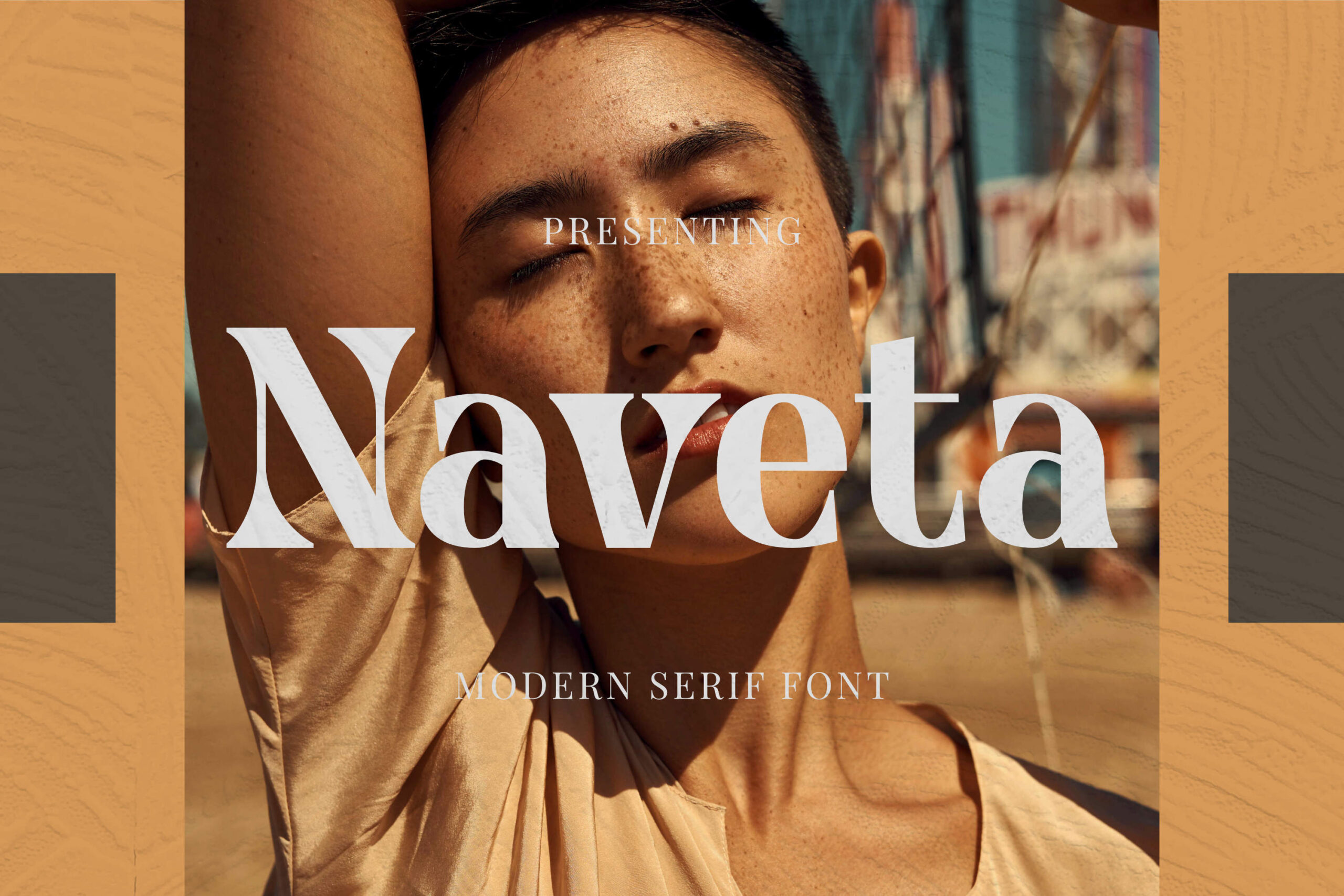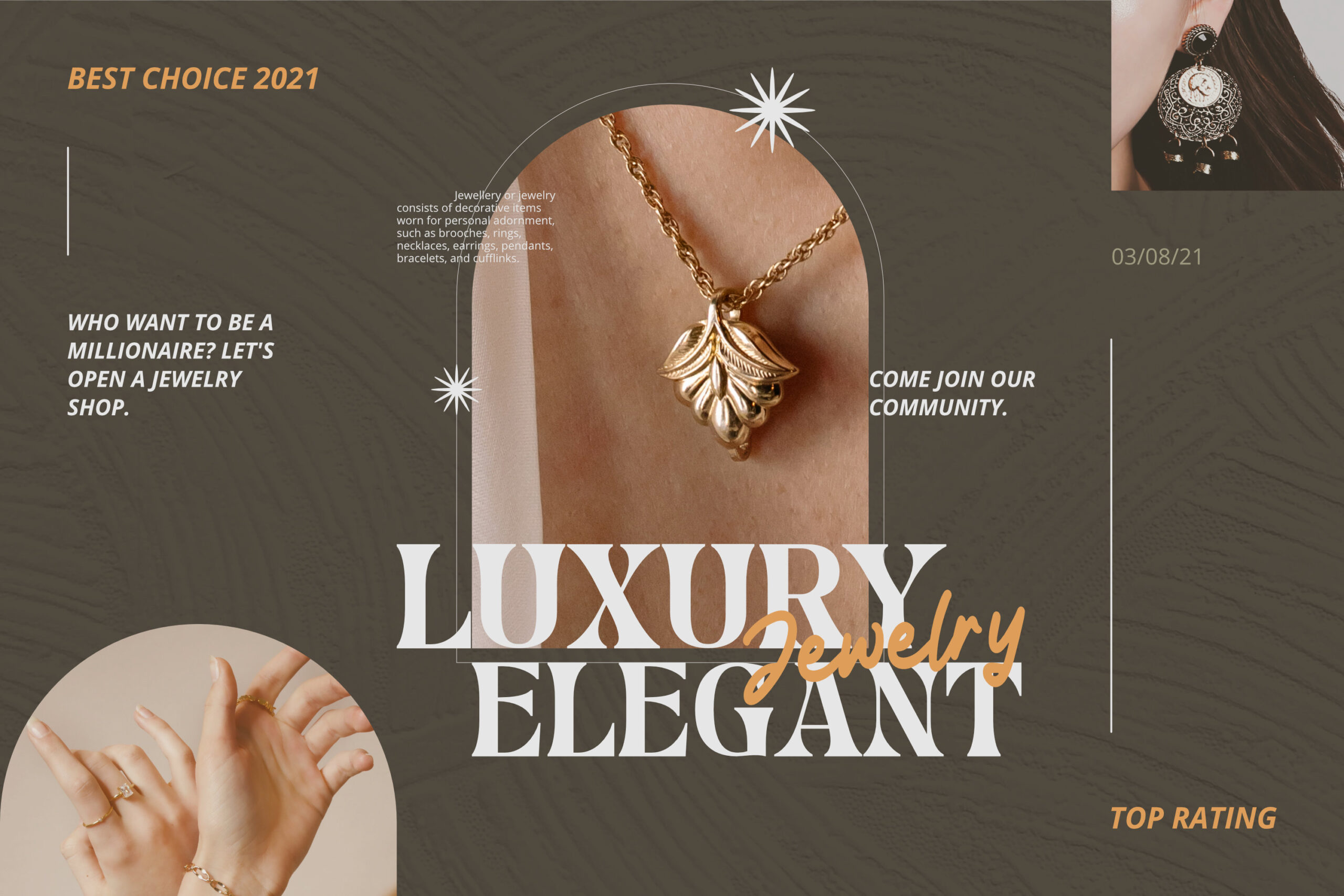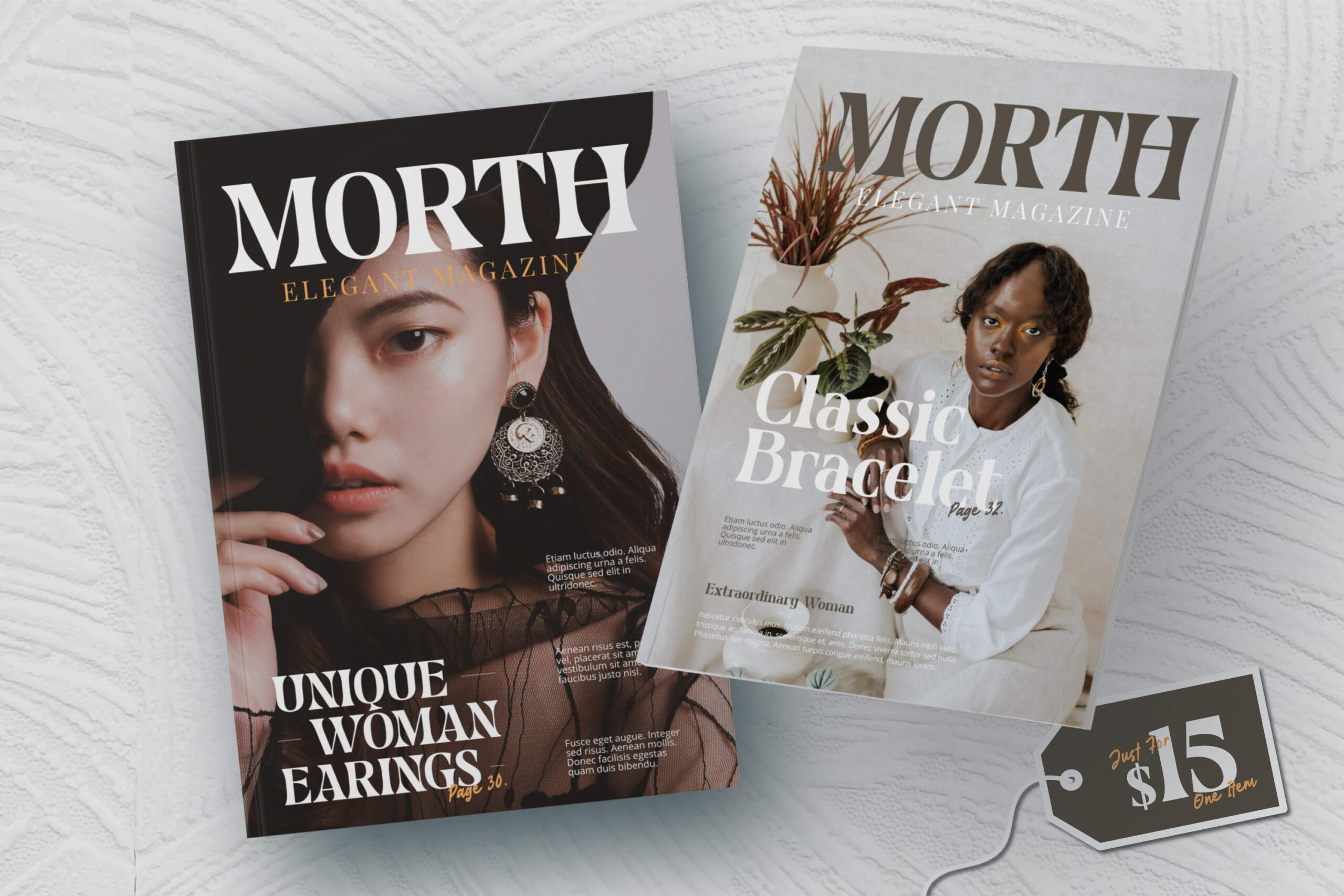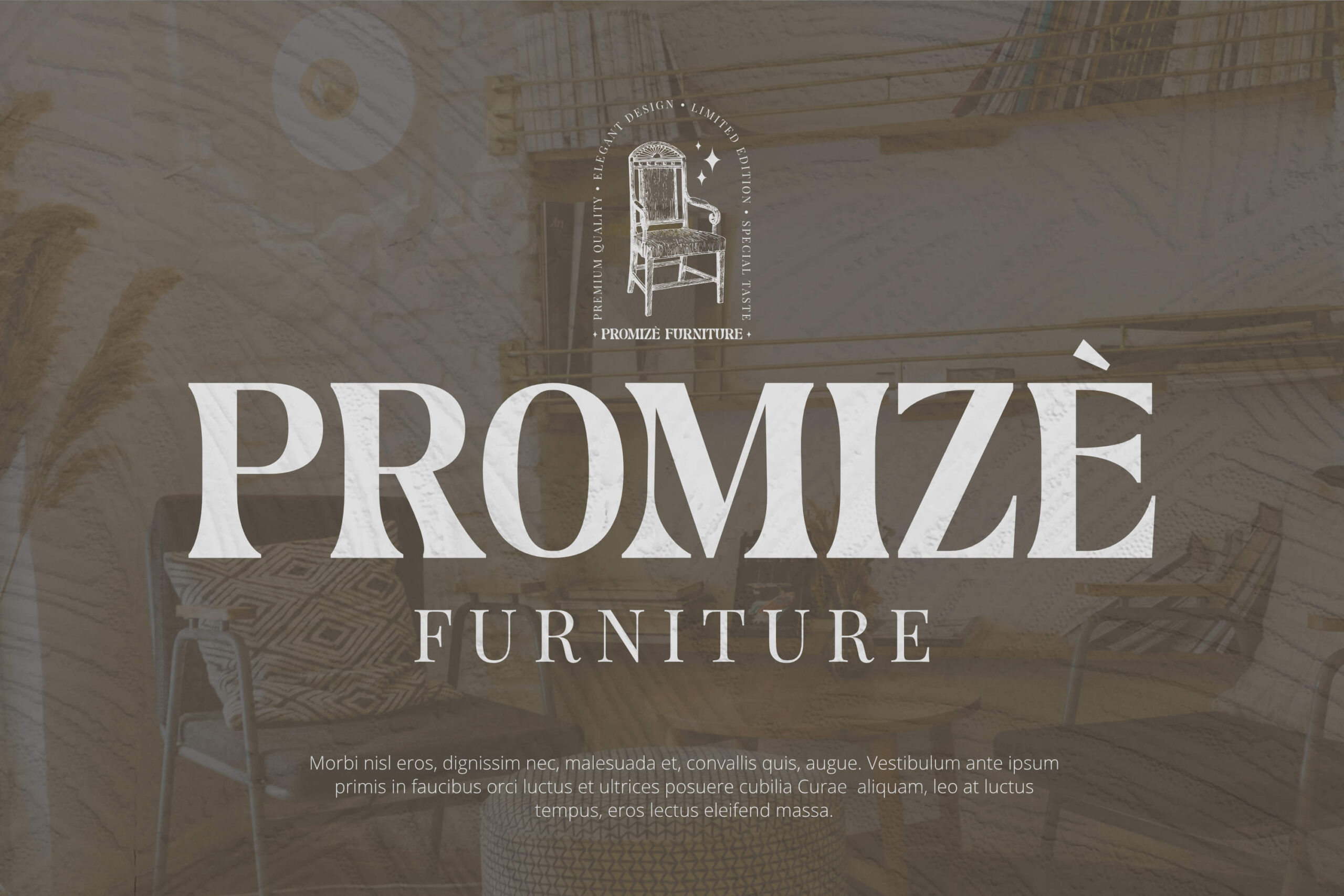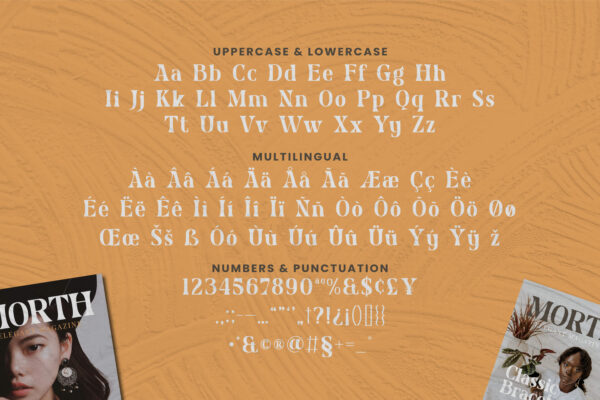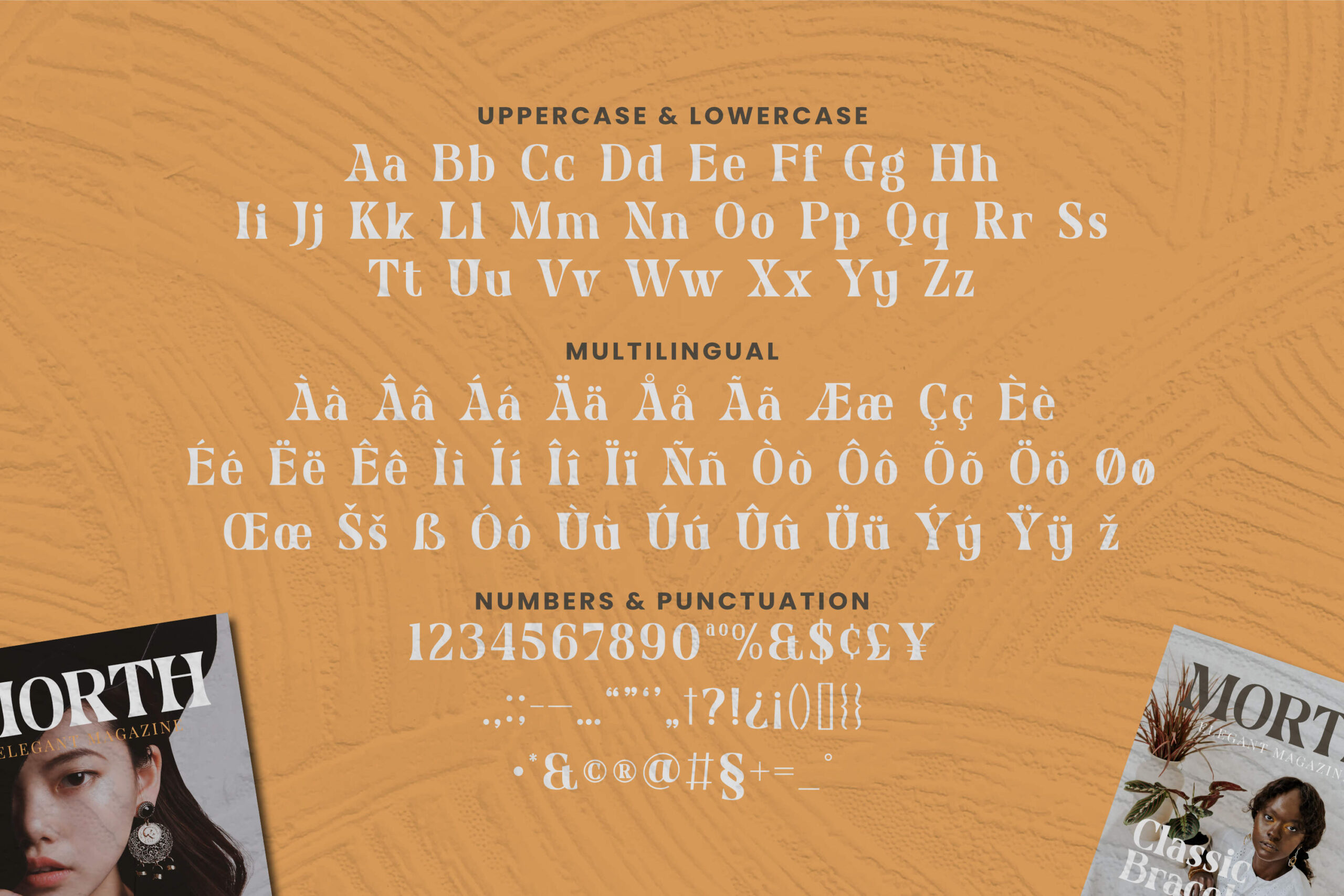
Naveta
Naveta is a sophisticated modern serif font that blends classic elegance with a contemporary edge. Its refined curves, high contrast strokes, and unique character shapes create a luxurious look that’s perfect for high-end branding, editorial layouts, fashion magazines, packaging, and lifestyle advertising. Every letter feels crafted for statement headlines and graceful typographic compositions.
Equipped with multilingual support, full punctuation, and numeral sets, Naveta delivers both beauty and function. Its clean yet distinctive style makes it ideal for logos, jewelry branding, book covers, and any design that aims to convey luxury, femininity, or modern refinement.